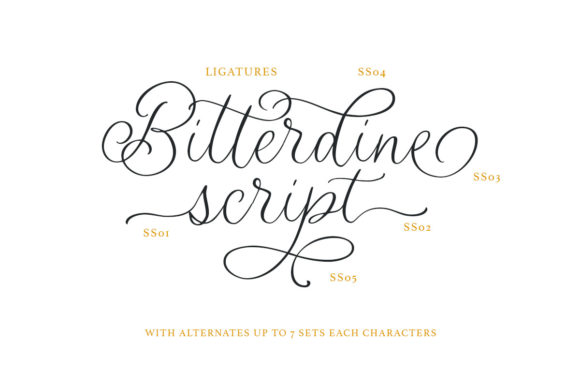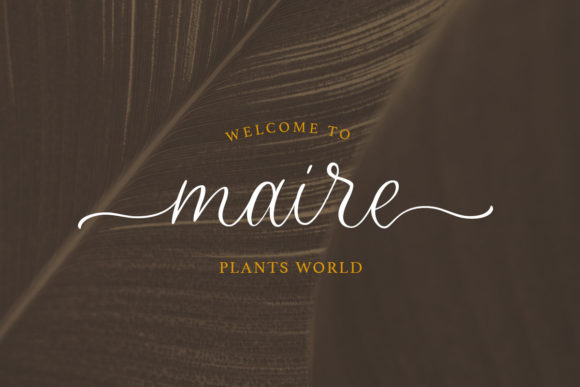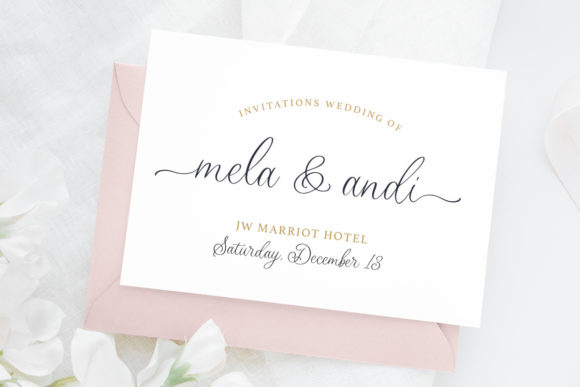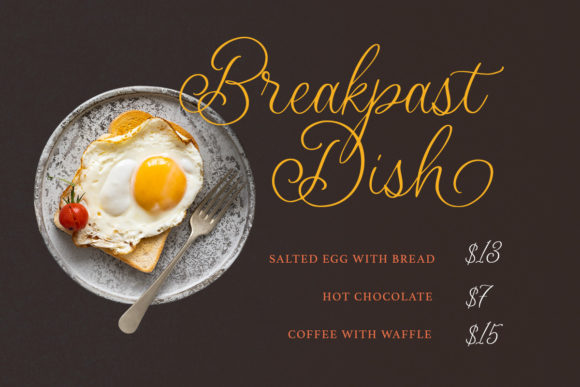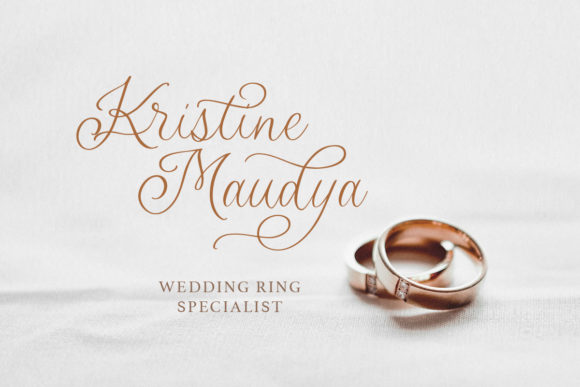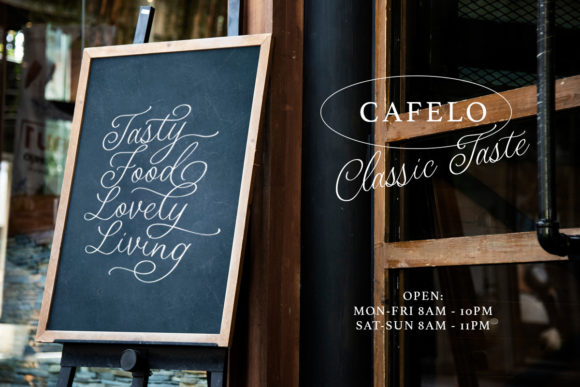
Bitterdine Font: A Modern and Natural Calligraphy for Designers and Crafters
In the world of typography, calligraphy fonts have always been a popular choice among designers and crafters. They add a touch of elegance and sophistication to any design project. One such font that has gained significant attention in recent times is the Bitterdine Font. In this article, we’ll take a closer look at this beautiful font, its features, and how it can elevate your design projects.
What is Bitterdine Font?
Bitterdine Script is a modern and natural calligraphy font that has taken the design world by storm. It is a beautifully crafted font that contains lowercase, uppercase, symbols, and supports multi-language. The font is characterized by its thin, delicate, and flowing strokes, which give it a wonderful touch.
Key Features of Bitterdine Font
- Modern and Natural Calligraphy: Bitterdine Font is a perfect blend of modern and natural calligraphy. Its flowing strokes and delicate lines make it a beautiful addition to any design project.
- Comprehensive Character Set: The font contains a comprehensive character set, including lowercase, uppercase, symbols, and multi-language support.
- Thin and Delicate: The font’s thin and delicate strokes make it perfect for designs that require a subtle touch.
- Flowing and Elegant: Bitterdine Font has a flowing and elegant feel to it, making it perfect for designs that require a touch of sophistication.
Use Cases for Bitterdine Font
Bitterdine Font is a versatile font that can be used in a variety of design projects. Here are some use cases where this font can shine:
- Wedding Invitations: The font’s elegant and flowing strokes make it perfect for wedding invitations, save-the-date cards, and other wedding-related designs.
- Branding and Packaging: Bitterdine Font can be used in branding and packaging designs where a touch of sophistication and elegance is required.
- Stationery and Journaling: The font’s delicate and flowing strokes make it perfect for stationery and journaling designs.
- Digital Designs: Bitterdine Font can be used in digital designs such as social media graphics, blog headers, and website designs.
Why Choose Bitterdine Font?
There are many calligraphy fonts available in the market, but Bitterdine Font stands out from the rest. Here are some reasons why you should choose Bitterdine Font for your design projects:
- Unique and Elegant: Bitterdine Font has a unique and elegant feel to it, which sets it apart from other calligraphy fonts.
- High-Quality Design: The font is designed with high-quality and attention to detail, making it perfect for professional designs.
- Multi-Language Support: The font supports multi-language, making it perfect for designs that require text in different languages.
- Easy to Read: Despite its delicate strokes, Bitterdine Font is easy to read, making it perfect for designs that require a clear and concise message.
In conclusion, Bitterdine Font is a beautiful and elegant calligraphy font that can elevate your design projects to the next level. Its modern and natural feel, comprehensive character set, and flowing strokes make it perfect for a variety of design projects. Whether you’re a designer, crafter, or DIY enthusiast, Bitterdine Font is a great addition to your font collection.